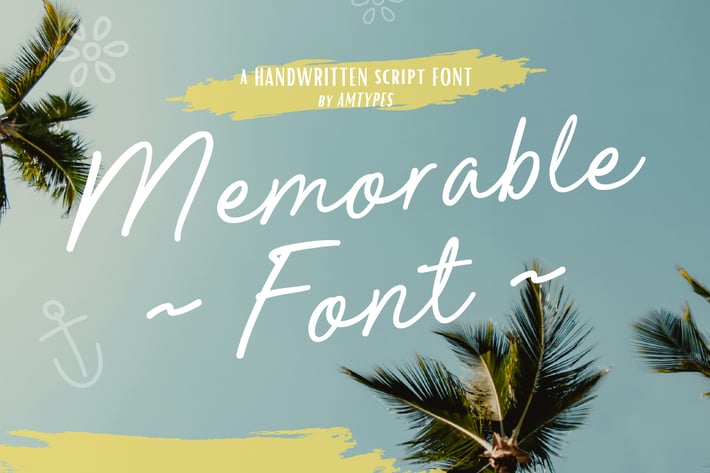
Memorable Font Script
Hello, let me introduce the newest font from amtypes. it's called Memorable Font.
Memorable Font is a minimalist and simple hand lettered script. this font can be feminine, it can be casual, it can be elegant, cute and masculine. This font is very suitable for all types of design needs, as a main font or supporting font.